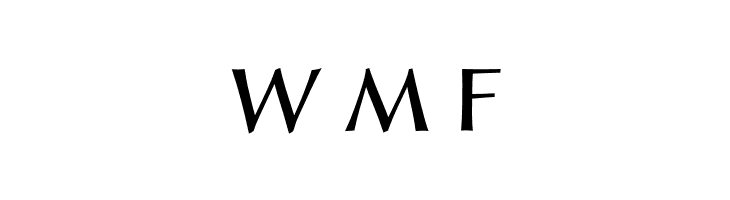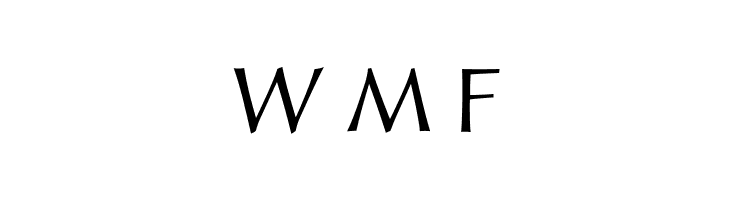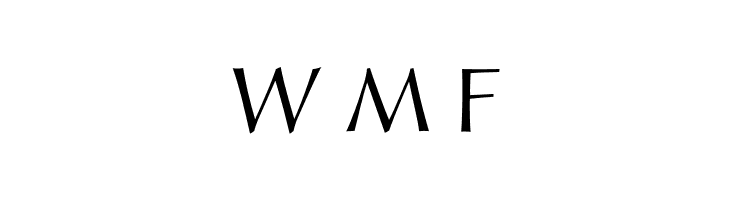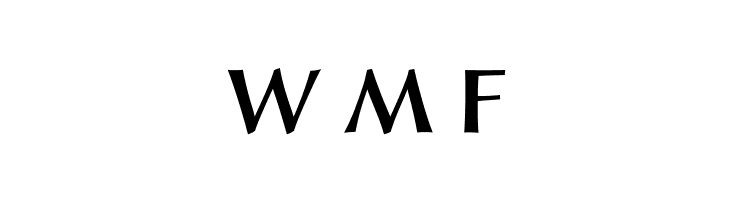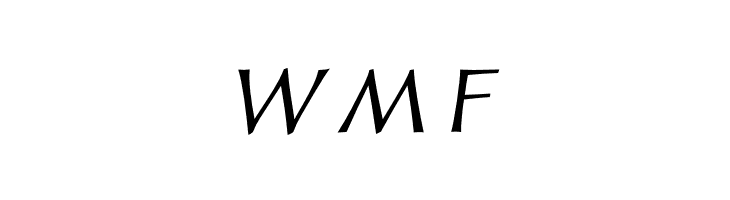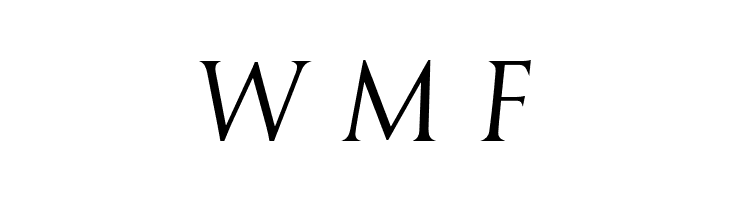
A semi-bold, elegant serif font with angular serifs and smooth curves.
A classic serif font with elegant, slightly condensed characters.
An elegant serif font with sharp serifs and high contrast strokes.
An elegant and dynamic italic font with sharp serifs and flowing letterforms.
A bold, serif font with sharp angles and strong vertical strokes.
A bold, italic serif font with high contrast and dynamic style.
An elegant italic font with medium contrast and smooth, flowing letters.
An elegant italic font with flowing, cursive-like strokes and graceful curves.
A classic serif font with elegant italics and moderate stroke contrast.
A bold, confident font with strong, uniform letterforms and excellent readability.